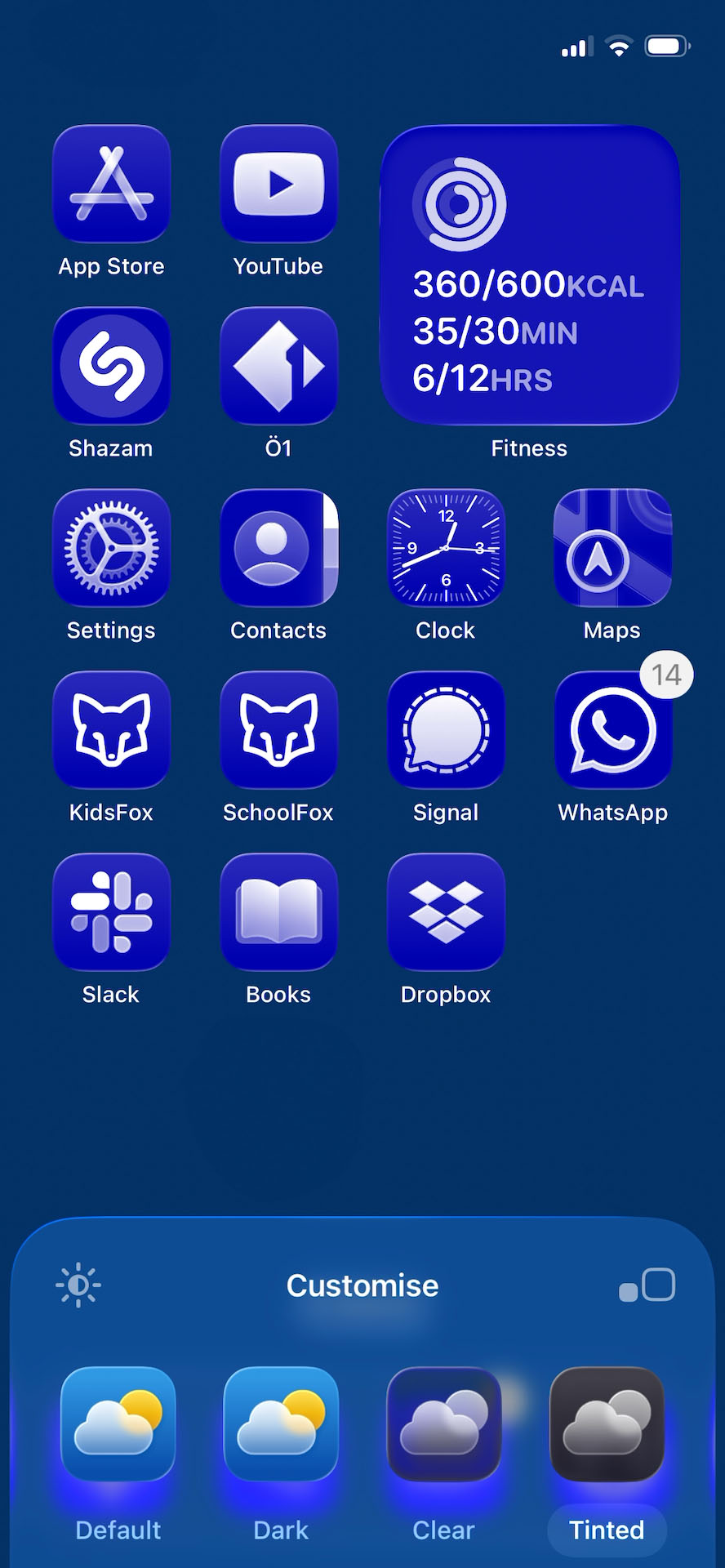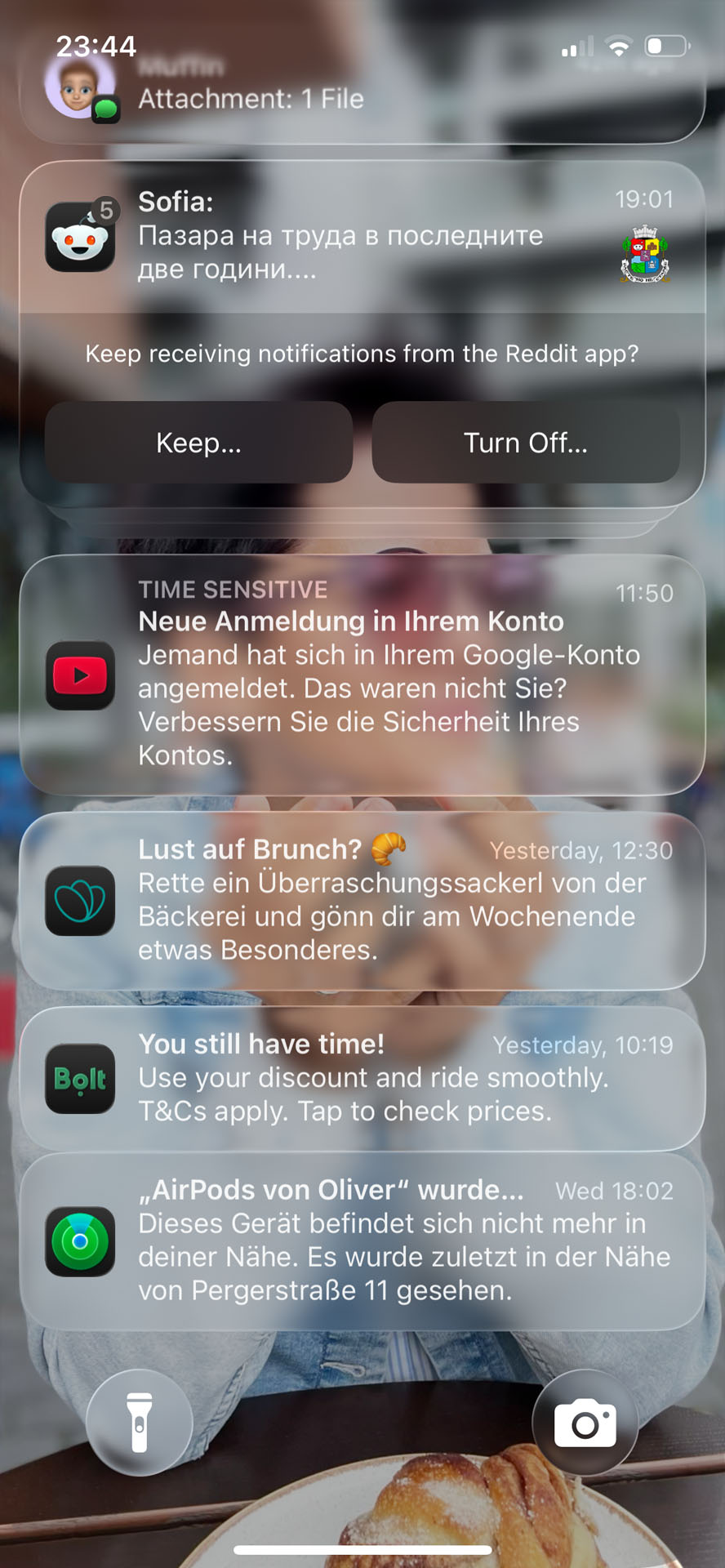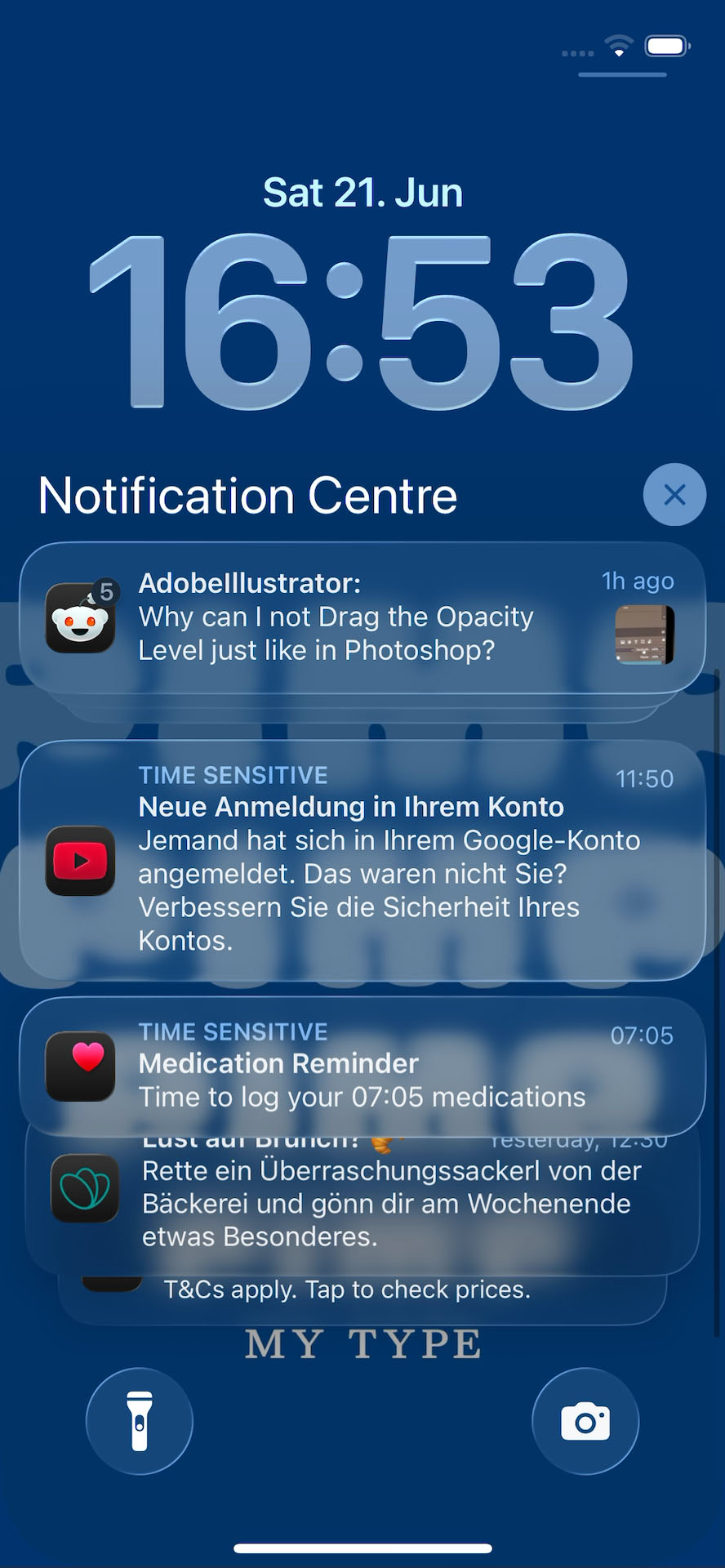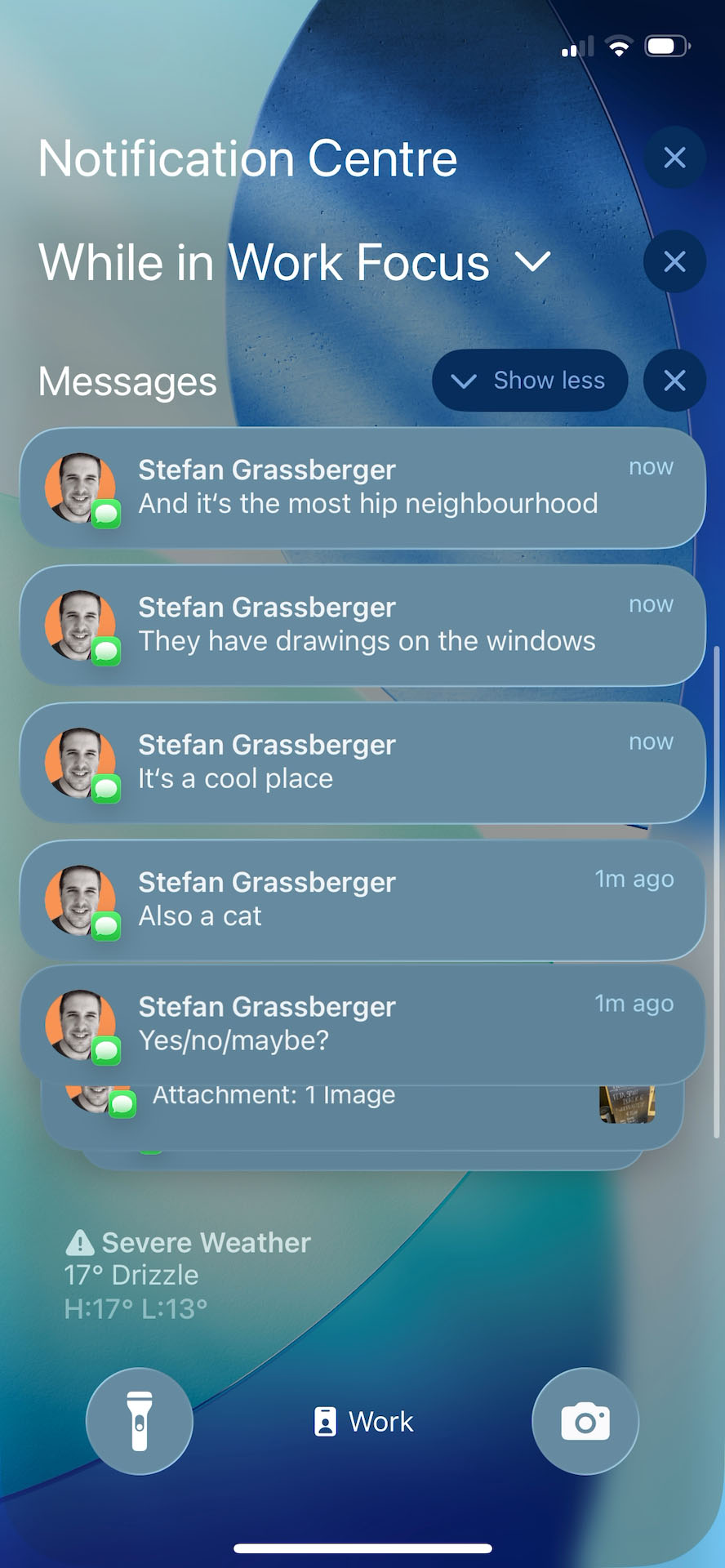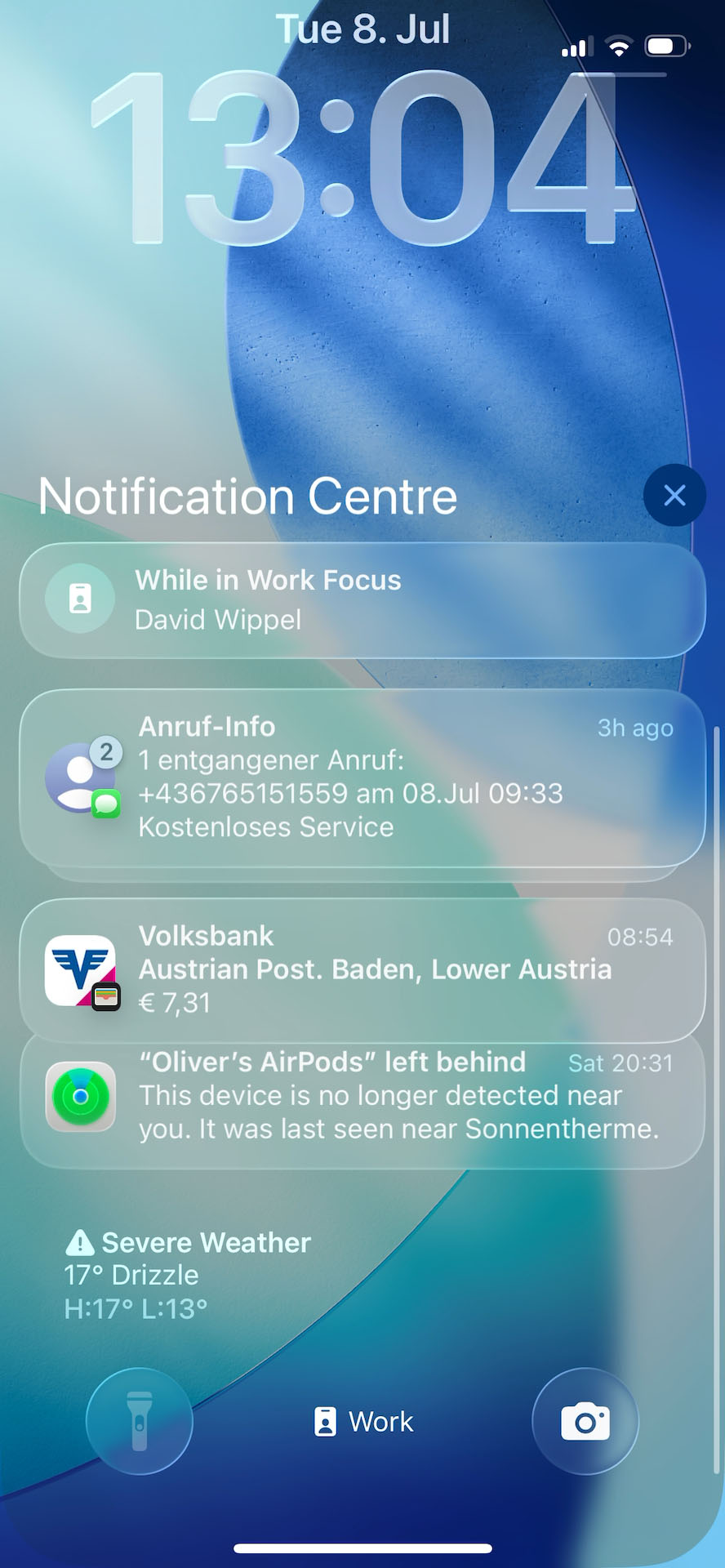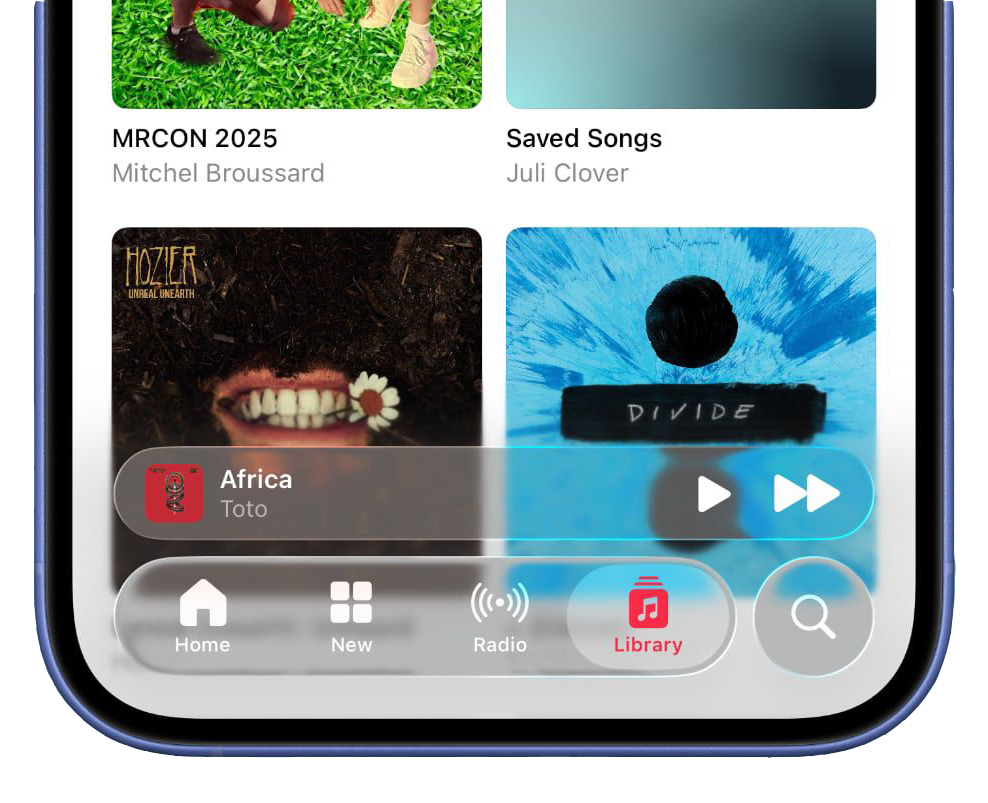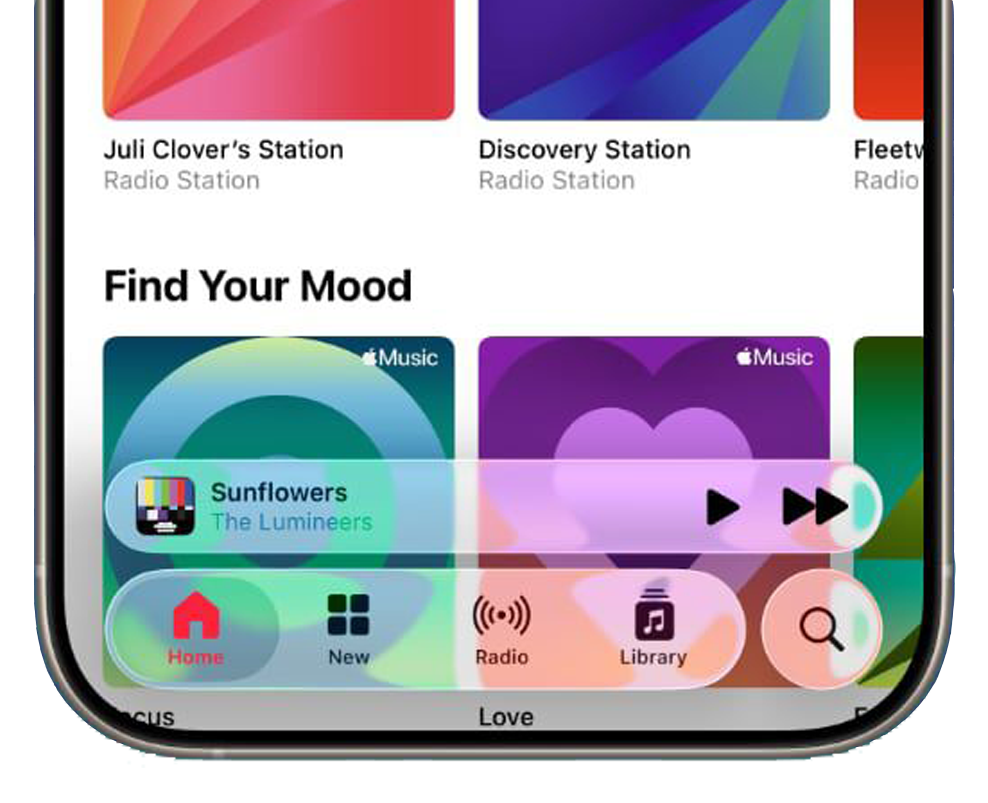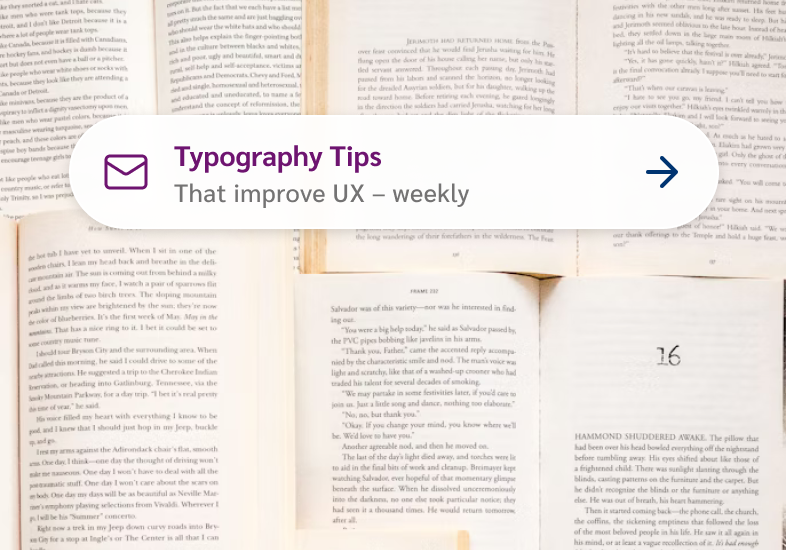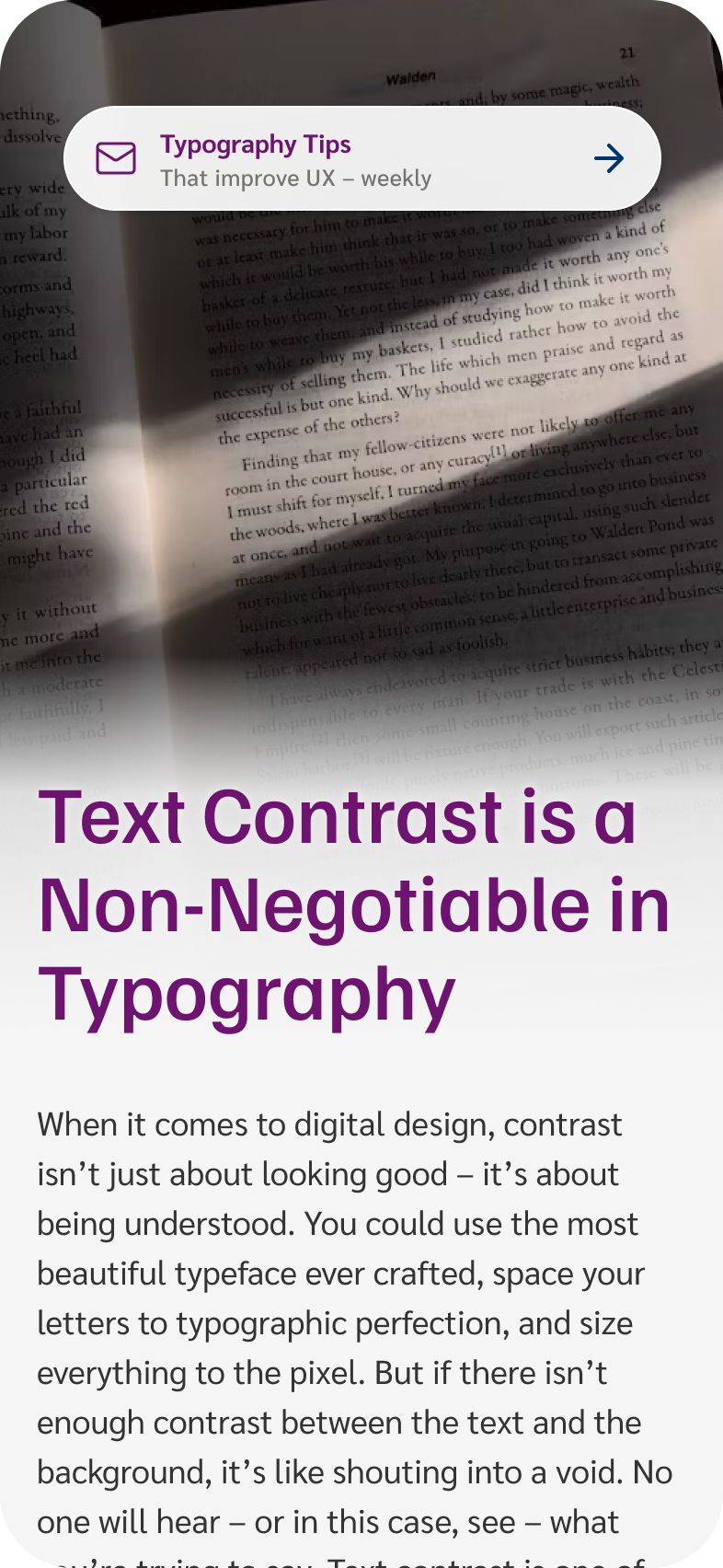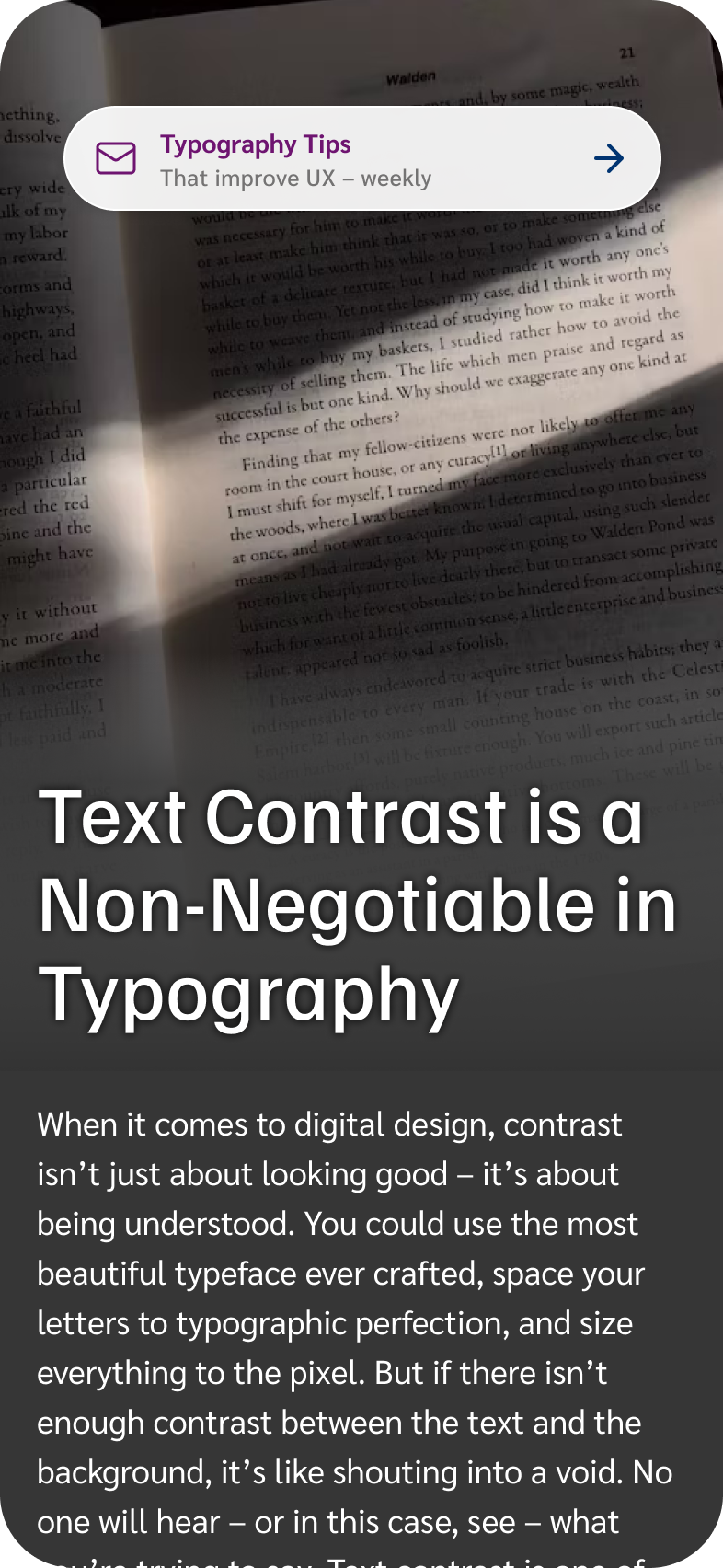
Apple’s Liquid Glass Shatters Typography
Apple recently announced iOS 26 with its “biggest visual update in over a decade”, introducing a shiny new UI design called Liquid Glass. It feels sleek, modern, impressive – at first sight. Because the moment you try to read anything, this mirror-like interface cracks usability and breaks my typographer’s heart!
So in this article and opinionated video I don’t only want to share with you the biggest three typographic problems with iOS 26, but mostly what we can learn from it for your own UI design with some practical examples.
While we’re still in early beta territory and things will evolve until its final release in September, design trends have a way of sticking around, and I don’t want people to take an example from that. Because what looks like innovation is actually a masterclass in how not to handle text contrast in user interface design.
1. Lack of color contrast
One of the most fundamental rules of readable design is clear text contrast. And yet, with Liquid Glass, the floating tab bar menus often fade into their background, making the active tab disappear like shy party guests.
Close-up of the Apple Music app's tab bar on iOS 26, showing a translucent, blurred background with a yellow radio icon on the left, a magnifying glass search icon with the text "Apple Music" in the center, and a purple microphone icon on the right.
In the Music app, you end up scrolling not for content but for for contrast.
Apple Podcasts app in dark mode, where the active "Home" tab blends in with the background, lacking contrast.
Dark Mode is a bit better, but even here the active tab renders almost invisible.
Sure, transparency and blurred layers look slick – but not on your lock screen, once you throw a busy wallpaper behind them. Suddenly, you’re squinting, second-guessing messages, and replying “Love you too” to your delivery driver.
An iPhone lock screen running iOS 26 shows a large clock and multiple notifications stacked. The wallpaper background is blue with text on it. Some of the notifications are partially obscured and hard to read due to transparency effects.
With a simpler background, the notifications are already hard to read.
A screenshot of an iPhone lock screen running iOS 26, with a custom photo as a background. It is displaying multiple stacked notifications. The white text on the notifications on a partially blurred background is difficult to read due to low contrast and overlapping transparency effects.
A custom photo background can make it almost impossible to decipher.
Seeing that makes me absolutely remember that contrast is our friend. The coolest font in the world won’t help if it’s floating in visual chaos. So add a background layer with sufficient contrast, as I will show you a bit later.
2. It easily breaks
Apple lets users customize their Home Screen style. Pick your poison and switch to Clear or Tinted icons. The Clear style looks sleek but turns the UI into a blur of indistinguishable icons, and suddenly you’re spending more time hunting for apps than actually using them – which could be an advantage considering social media 😜.
iOS 26 home screen featuring a clear, glass-like icon style where all app icons are monochrome and semi-transparent.
Clear Style Icons how Apple wants me to see them …
An iOS 26 home screen showing a repeating grid of identical "Messages" app icons, all in a clear, glass-like monochrome style with a white speech bubble outline on a frosted background.
… while this is how I acutally experience it.
But even worse is the Tinted style. Express your personality with color – well, really? A sophisticated user might finesse it into something stylish – but most won’t. It takes five minutes to make it look good. It takes five seconds to turn it into visual chaos.
iOS 26 home screen features a rich, deep blue "Tinted" glass style. The app icons, widgets, and even the customization interface adopt a cohesive midnight blue tone with soft gradients and white accents for glyphs and text.
Users might make something stylish out of the Tinted icons …
An iOS 26 home screen with a strong green "tinted glass" style applied to all app icons and the Fitness widget. Each icon has a neon-like, high-contrast green background with white glyphs, giving the screen a harsh, almost fluorescent look.
… or turn their home screens into garish nightmares.
Of course, you could blame users for their choices, but I’d rather blame the system for making poor choices possible in the first place. So in your UI design you should always plan for edge cases, limit fragile options, and prioritise resilience.
3. Accessibility became a hidden feature
Apple does provide an option to “Reduce Transparency” in accessibility settings – and suddenly, the UI becomes more usable. Not just if you have low vision – but if you’re tired, on a shaky bus, or outside with 3% battery in bright sunlight.
With reduced transparency, notifications are suddenly easier to read.
iOS 16-style Notification Centre with a translucent glass background, large white clock at the top, translucent rounded notification cards, and a soft blue-green wallpaper visible underneath.
While the default design shows messages as translucent riddles.
But that shouldn’t be a hidden extra. Readability is not an add-on, and after all the attention to accessible design in recent years, I find it very disturbing that they make it harder for more people by default.
Text on the the floating tab has more contrast with reduced transparency, although the active tab is still problematic.
When comparing it to the original design, it becomes even clearer how the glassiness makes readability unclear.
When considering accessibility, aim for a single, robust design with accessibility built in, not on top.
Not everything’s bad
To be fair, as a designer I find it great to have a new visual direction after the slightly evolved flat design of iOS 7 from 2013. I really enjoy how Apple embraces the fluidity of variable fonts with the clock on the Lock Screen, also the contextual menus are bigger and more contrasting now.
Making the best out of variable fonts! The clock animates so smoothly, simply gorgeous.
The contextual menus offer good contrast and have a larger touch area as well.
Many other things work well in iOS 26, but these three problematic areas cast a long shadow, and I’m afraid that they might encourage more designers to sacrifice readability for style. So let’s break this down into a more practical and realistic example, and how to evolve it.
How you can improve your UI Design
Now since not everyone is designing the next iOS – I guess 😉 – I want to distill some key takeaways from Apple’s contrast crimes into a relatable example, using a fictional app design here.
1. Make robust choices for your background
Picture this: in a web design you decide to overlay text directly on a striking background image. Looks polished, feels modern – but is it readable? Not if one image swap can turn it into a readability minefield.
Digital design article with the headline 'Text Contrast is a Non-Negotiable in Typography' placed over a busy background of open books, where the purple text blends into the light and patterned background, making it hard to read and demonstrating poor contrast.
🤔 Text over image can become problematic, depending on the image.
Digital design article with the headline 'Text Contrast is a Non-Negotiable in Typography' placed over a busy background of open books, but this time with improved contrast, making the dark purple text stand out clearly against the lighter, softened background."
😃 Adding a background, maybe with a soft gradient enhances readability
Fixing it
1. Add a background. This can be an elegant gradient, so the text still connects with the image underneath.
2. Turn up the opacity of your text containers to create better separation.
3. Add a subtle text shadow in a color similar to the page background to make text more resilient.
2. Build robust systems
Let’s add a newsletter sign-up bubble on top of our image – by the way, you should definitely sign up for that newsletter 😉. Looks glassy and nice, but again, it’s horrible to read.
Typography tips banner over an open-book background with improved contrast; text is clearly legible due to a white translucent bubble separating it from the busy background.
😳 Tiny light, text on a translucent background result in a readability riddle.
Typography tips banner over an open-book background where contrast is optimized; the text stands out sharply with a cleaner, bolder style and enhanced readability inside the white bubble.
😊 Increased text contrast, font size and weight on a more opaque background.
Fixing it
1. Drop the opacity of transparent elements to make backgrounds more solid and text easier to read.
2. Aim for sufficient color contrast of at least 4.5:1 for normal text.
3. Bump up text size when working with challenging backgrounds.
4. Increase font weights: From Regular to Bold for the title and for small text to Medium.
5. Add a pinch of letter spacing to open up the letters just enough to breathe.
This creates a system that works across various backgrounds, light and dark.
3. Design for when things go wrong
Consider less-than-ideal use-cases. What happens when the text gets longer? What happens if users upload a totally different background image?
Digital design article preview with poor text contrast. The background image of a book transitions abruptly into a bright white gradient foreground, making the text readability issue visually obvious.
😬 Harsh gradient transition over a dark background image
Digital design article preview in a custom dark mode style. The background blends smoothly with the foreground, creating better text contrast and improved readability compared to the light version.
🤩 A dedicated style for dark images could solve that.
Fixing it
• Either limit options, so users can’t break the experience. This would mean not overlaying image and text in the first place.
• Or offer dedicated modes that handle edge cases gracefully.
Design for accessibility by default
Imagine if our designs had a switch from “Poor contrast” to “Sufficient contrast”. Legally, this would pass accessibility guidelines. But would everyone find it? Would you want to maintain two designs? Or would you rather build one resilient system that works for the most people?
Fixing it
• Don’t treat accessibility as something extra to hide behind a toggle.
• Make it the foundation of your design, right from the beginning.
Apple already circles back
While I was writing this, Apple is already tweaking the interface – dialing back some of the glassiness (then bumping it up again), but overall aiming to improve background colors for better contrast. That shows we’re heading in the right direction. I’m curious how it will turn out, once the final version is released.
iPhone music app screenshot showing the 'Find Your Mood' section with colorful album covers in the background. The navigation bar at the bottom has a semi-transparent, blurred background with icons for Home, New, Radio, Library, and Search. A music player for 'Sunflowers' by The Lumineers is floating above the nav bar, blending with the background colors
Beta 2 is much more translucent. Image: MacRumors
iPhone music app screenshot showing saved playlists and albums with cover art visible in the background. The navigation bar at the bottom is semi-transparent with a gray tint, containing icons for Home, New, Radio, Library, and Search. A music player for 'Africa' by Toto is displayed just above the nav bar with a blurred, frosted-glass effect blending into the album art.
Beta 4 shows slightly more contrast. Image: MacRumors
But what I’m most afraid of is that making things look shiny and glossy might stir designers into thinking: “You know what’s cool? Making text look like it’s been laminated, dipped in glass cleaner, and hidden behind a glare.” And we are already seeing some tendencies out there. Which makes it even more important to remember how crucial good text contrast is.
Your takeaways
In a nutshell, these small changes make huge differences.
1. If your UI has text, it needs to be readable. If the text isn’t essential, delete it. If it is essential, respect it.
2. Add subtle backgrounds, adjust text size or weight. Blur and transparency can look slick – but only when implemented thoughtfully.
3. Check your color contrast. Learn more about it in this article.
Design systems should protect users from making poor choices – not enable them. The goal isn’t to look cool – it’s to be understood. Even if that means breaking some glass.
Raluca Budiu’s article on the Nielsen Norman Group Blog also shares great examples of how Usability Suffers in iOS 26.